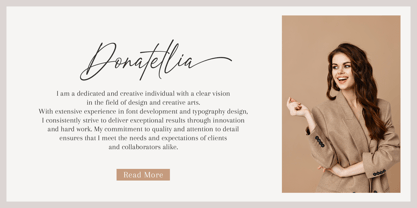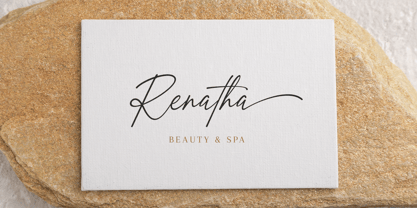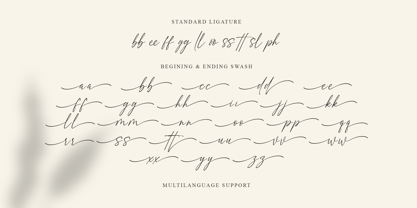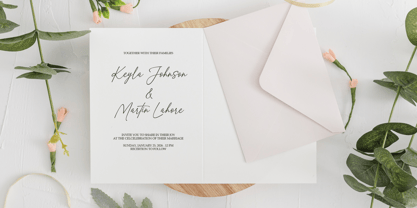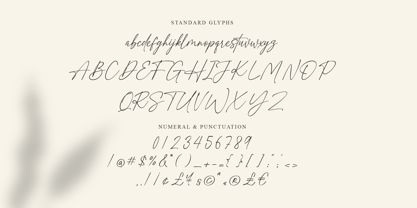
Sending Hopes
by MJB Letters
The Sending Hopes Font Family was designed by Muhammad Mujibulloh and published by MJB Letters. Sending Hopes contains 1 styles. More about this family
Introducing “Sending Hopes,” a modern and cute calligraphy script by MJB Letters. This font combines elegance with a playful touch, featuring smooth, flowing lines that create a sense of warmth and charm. Perfect for adding a personal and stylish flair to your projects, “Sending Hopes” is ideal for invitations, branding, and more.
The font includes a variety of features such as ligatures and initial and terminal swashes, enhancing its creative potential. It also supports multiple languages, making it versatile for global use. With these features, “Sending Hopes” turns every word into a delightful expression of creativity.
Features:
– Basic Latin A-Z and a-z
– Numbers
– Symbols
– Beginning & Ending Swashes
– Multilanguage Support